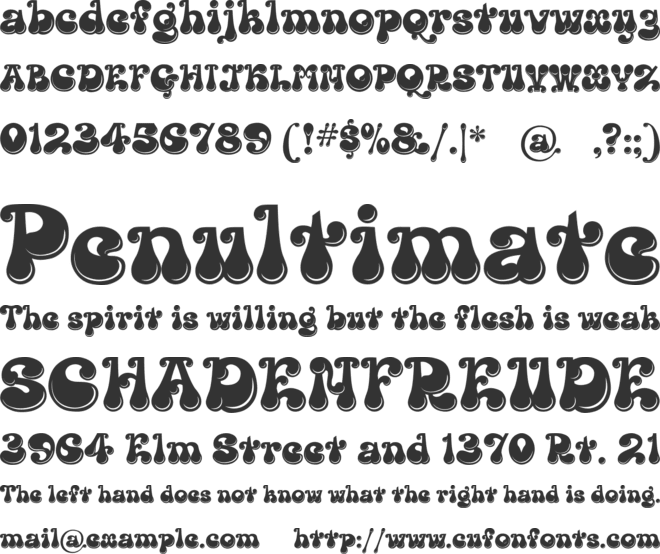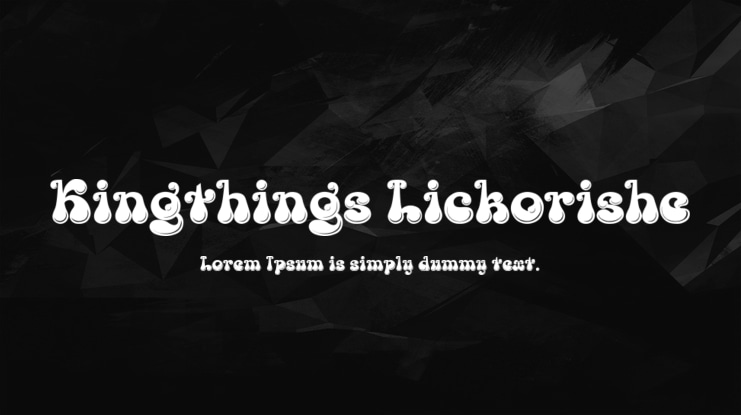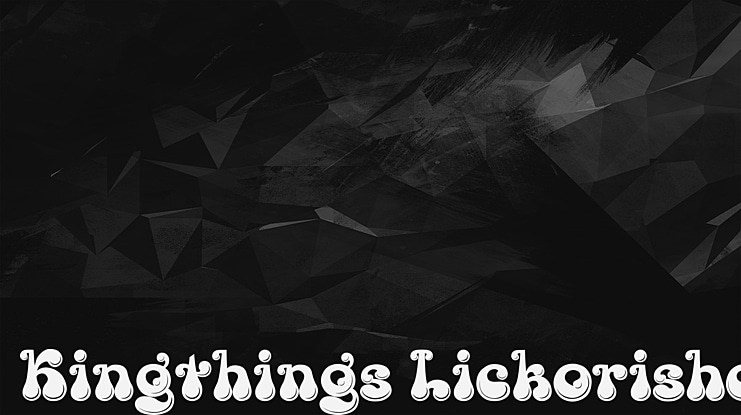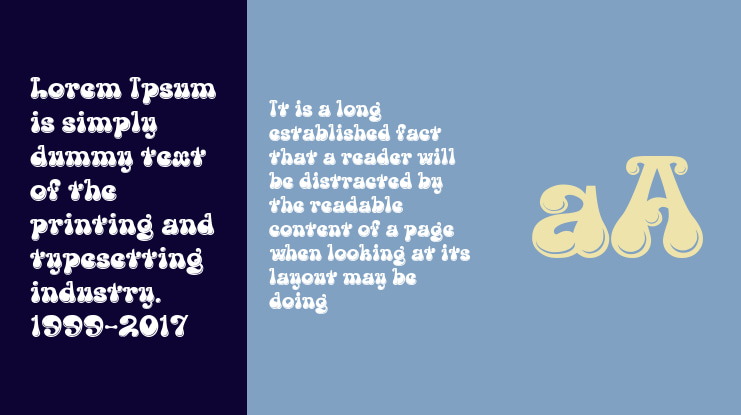
Kingthings Lickorishe Font
When I started this font it was called Pestle... It didn't run - it didn't even walk. At some point I thought, Hmm! Looks a bit like Liquorice! And now... Voila! I remember being able to buy about a yard of Liquorice rolled around a central comfit - how fab! Tuppence worth of sticky afternoon! You could also buy bundles of Liquorice root - which looked like black twigs with bright yellow wood - they left my teeth full of black barky twiggy bits...
The past is a strange Lady - Bless her!
This was almost Kingthings Leechy... just another one of my bulbous shiny things - I have always liked letter-shapes with 'bottom', probably a 70's thing, as many a seventies thing did indeed possess it - including the fabulous Chaka Kahn... Oooh, Diva!